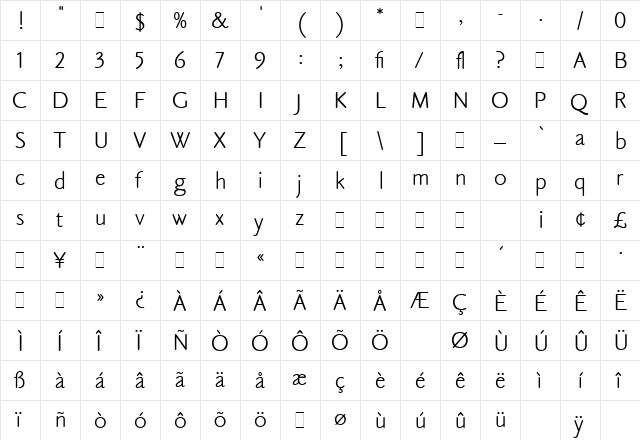
Claude Sans LET Plain
Design Context for Claude Sans LET Typeface
Claude Sans LET is a composed and adaptable typeface that performs quietly and consistently across a wide range of design contexts.